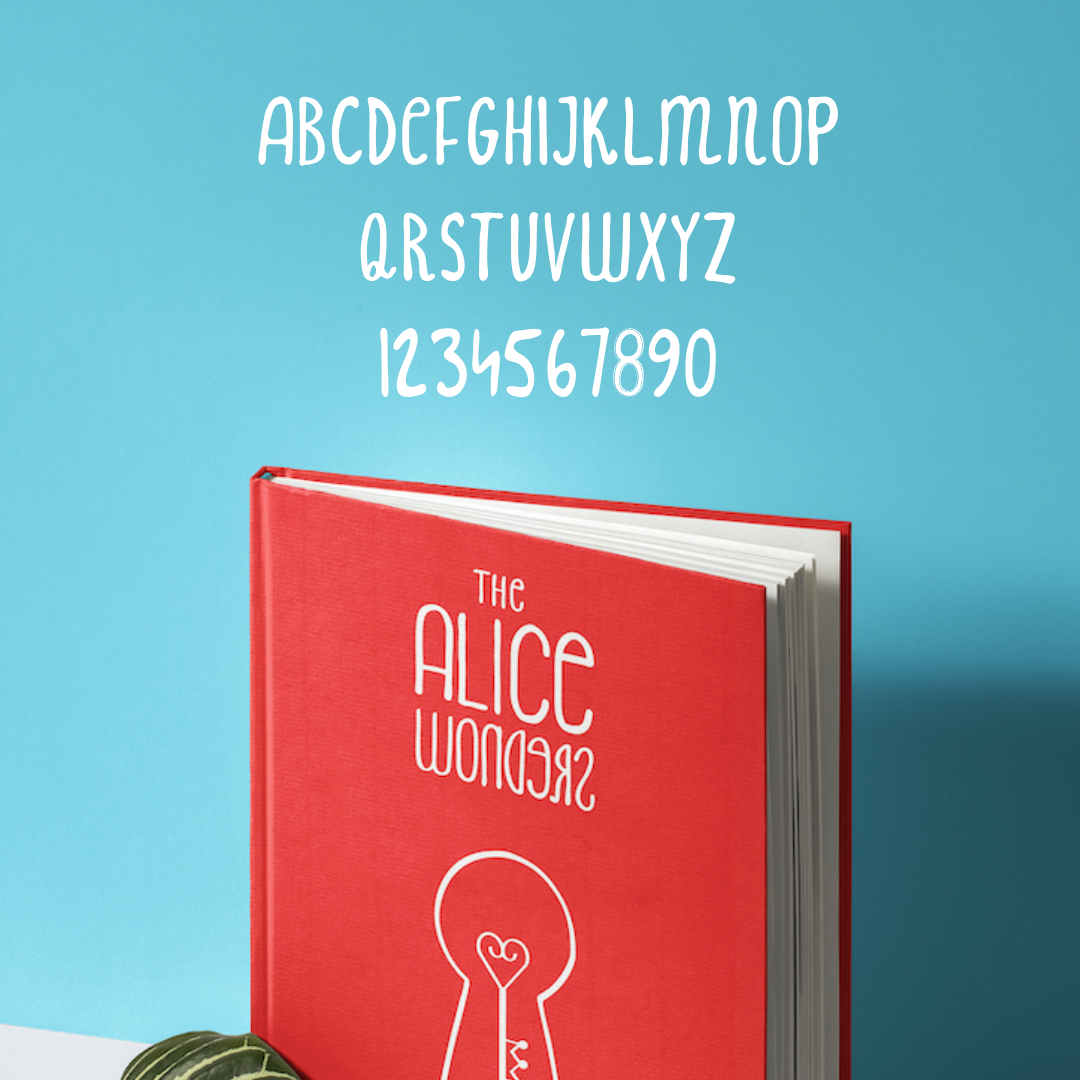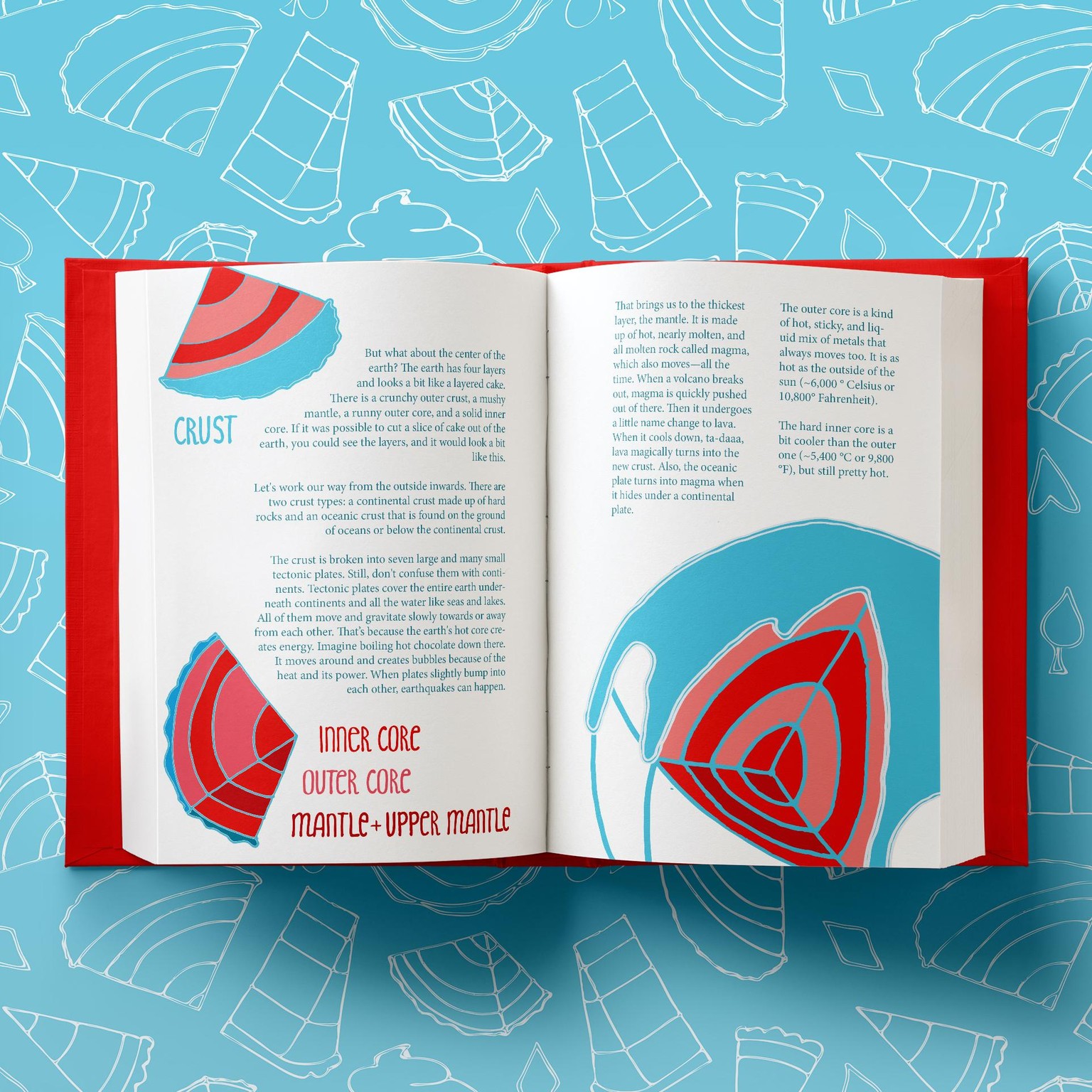
The Alice Wonders Font
To be honest, I didn't work with Fontself and Fontlab, but since my process from start to finish falls in the category "neanderthal"ish and did include Illustrator, I'm happy to share my font as a project of this class.
If you don't have the tools either, here's how I did it without them:
1. Create each letter + number with a regular pen on paper
2. Take a photo of it and send it to your computer
3. Trace the image in illustrator
4. Save every letter individually as an .svg file
5. Import every character to its respective place on glyphrstudio.com (free)
6. Adapt the spacing if needed
7. Export your font as .otf file
Et voila. It took me a long time because I don't have any previous experience with fonts, but I hope it saves you time ;)